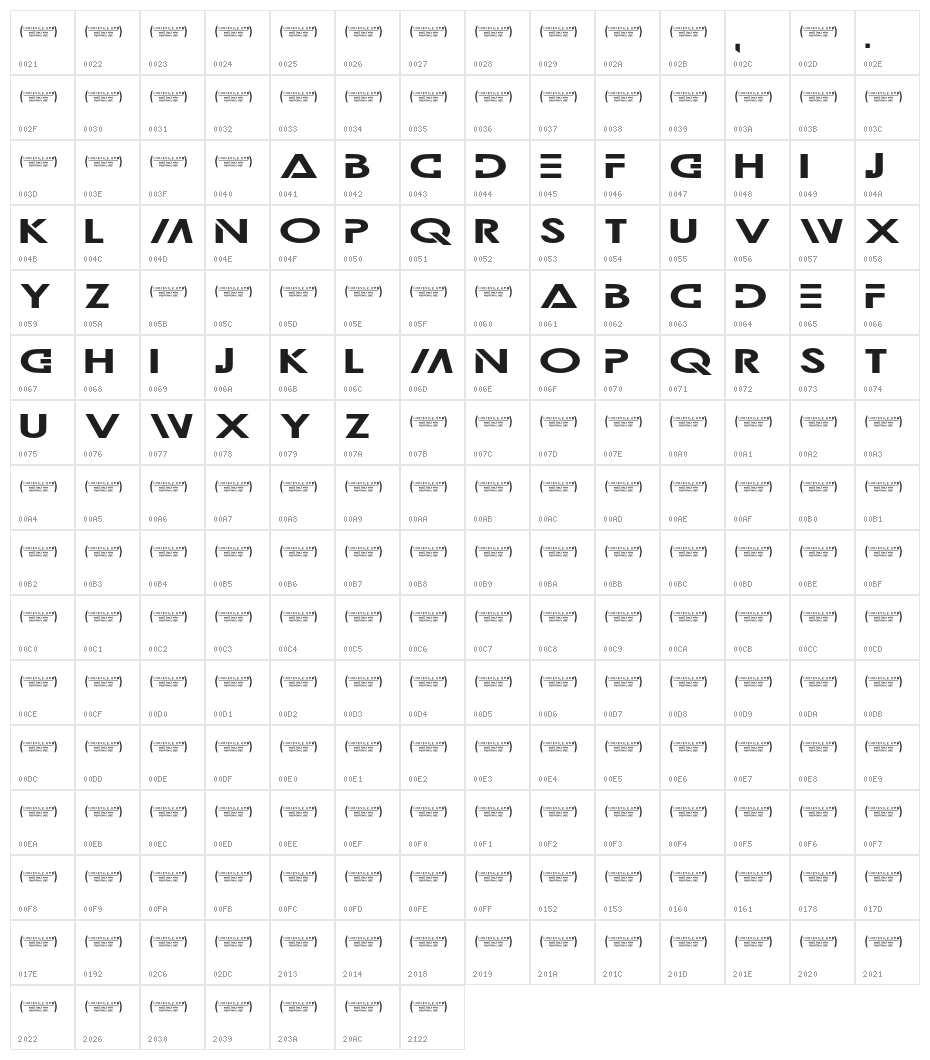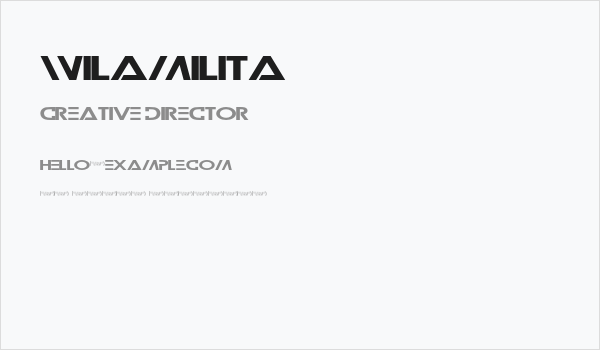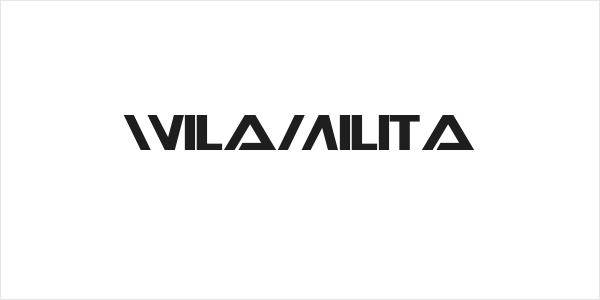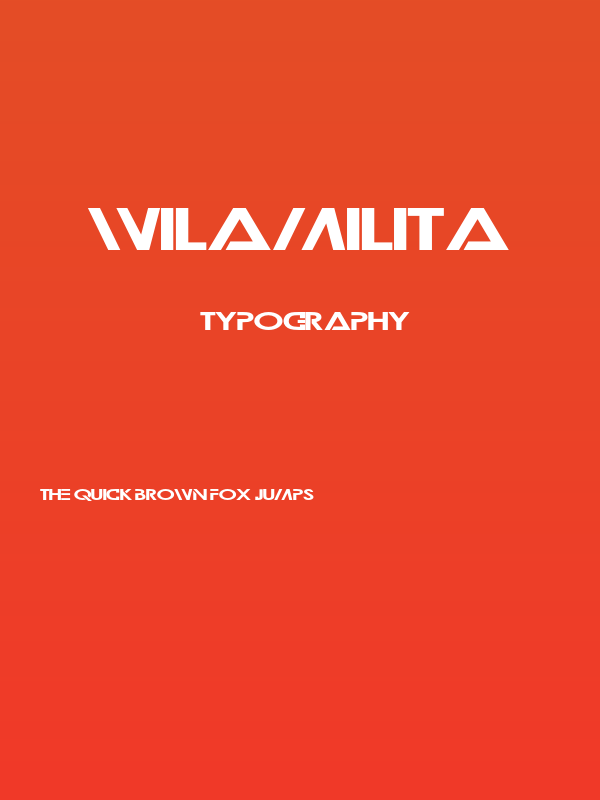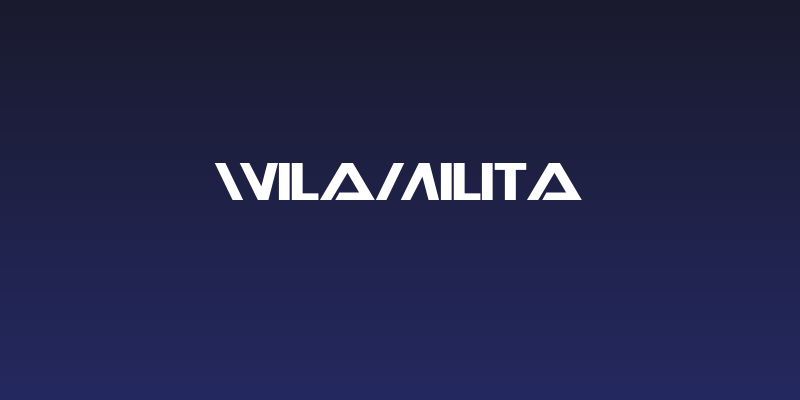
WilaMilita Font
WilaMilita Description
This font features a bold, futuristic design with geometric elements and a strong presence. The uppercase letters are crafted with sharp angles and unique cutouts, creating a sense of movement and modernity. The strokes are thick and consistent, providing a high level of contrast that makes each character stand out. The font's style is distinctly modern, with a touch of industrial flair, making it suitable for projects that require a bold and impactful visual statement.
| Proposed Projects | Ideal for branding, logos, headlines, posters, and any project needing a modern, impactful look. |